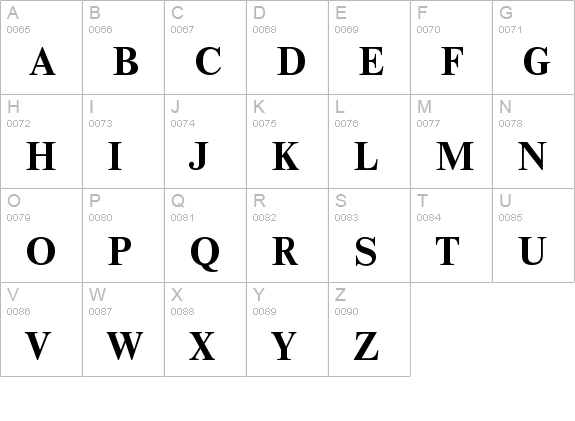
PT Newton Bold Cyrillic Font Details
PT Newton Bold Cyrillic is a strong, high-contrast variant in the PT typeface family \xE2\x80\x94 well suited to headlines, attention-grabbing titles, and strong calls-to-action.
PT Newton Bold Cyrillic is a striking and versatile font that exudes a bold and commanding presence. With its clean lines and modern aesthetic, this font is perfect for creating eye-catching headlines, titles, and branding materials. The Cyrillic characters add a touch of elegance and sophistication to any design project. Best of all, PT Newton Bold Cyrillic is available for free download at FontsMarket.com. Whether you're a designer, marketer, or creative professional, this font is a valuable addition to your typographic toolkit. Elevate your designs with the timeless appeal of PT Newton Bold Cyrillic and make a lasting impression on your audience.